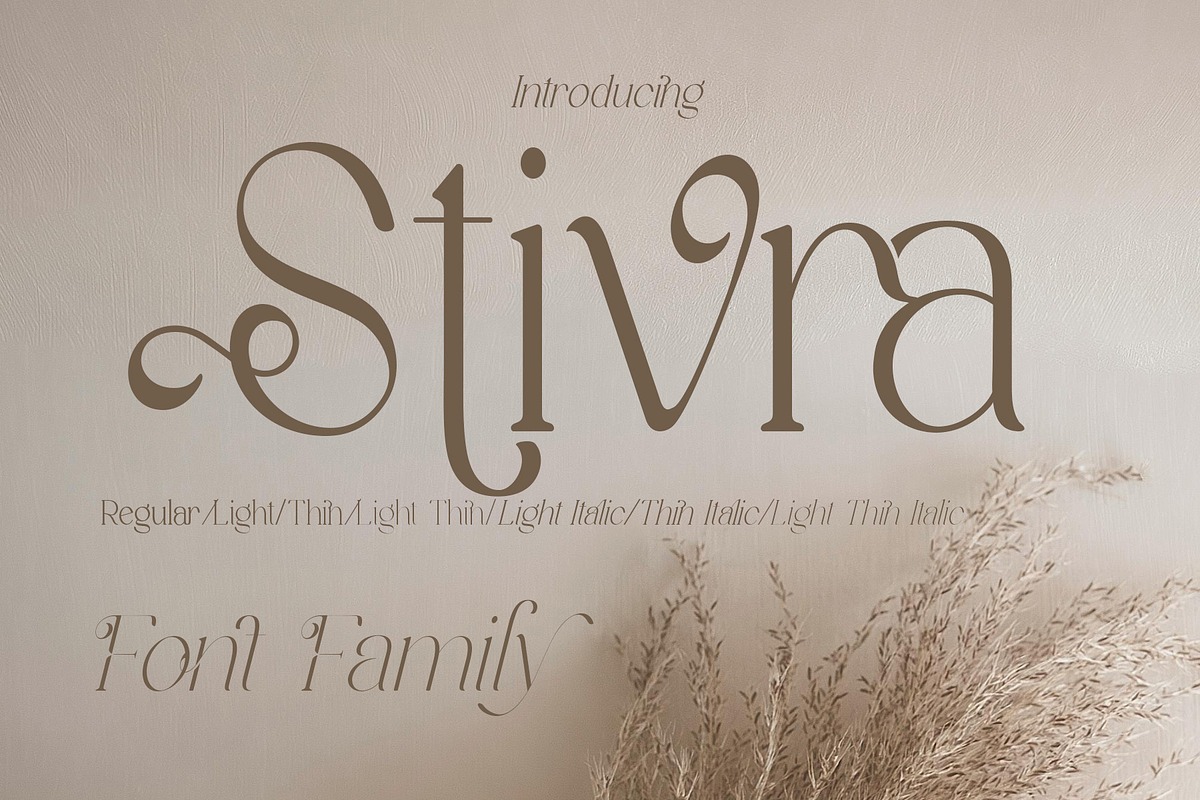
Stivra – Timeless Serif Font
Stivra – Timeless Serif Font is a premium-quality font developed to enhance your work with a polished, modern, and visually elevated look. Stivra is a refined serif typeface that blends minimalism with a soft, emotional touch. Its slender letterforms and gentle contrast between strokes create an elegant, warm, and subtly romantic appearance.
Featuring multiple styles including Regular, Light, Thin, and Italic, Stivra offers great versatility for various design needs. It is ideal for high-end branding, fashion, beauty, editorial layouts, headlines, logos, packaging, and projects that require a delicate yet professional typographic voice.